Commercial Type
Commercial Type is a digital type foundry established in 2007 in New York City by Paul Barnes and Christian Schwartz. It specializes in both commissioned typefaces and an extensive library of retail fonts, including notable works for publications like The Guardian and the open-source Roboto Serif for Google.
Control Collection
Commercial Type
The Control Collection is a versatile typeface family designed for clarity and functionality. It is known for its clean lines and modern aesthetic, making it suitable for a wide range of applications, from editorial design to branding. The collection emphasizes legibility and adaptability, catering to both digital and print media.
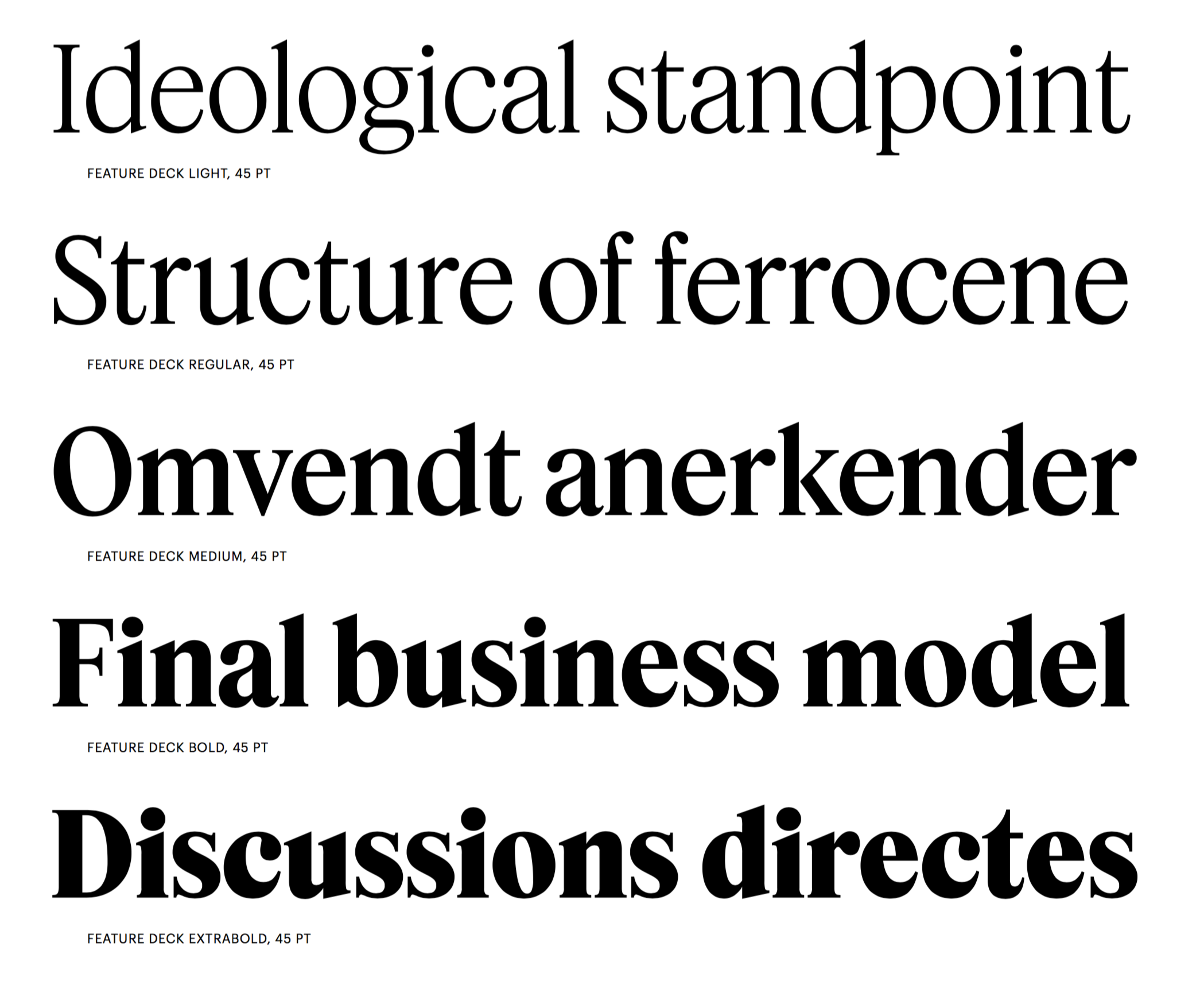
Delusse Family
Commercial Type
Delusse is a contemporary serif typeface that combines classic elegance with modern sensibilities. It is known for its versatility and readability, making it suitable for both print and digital applications. The typeface is often used in editorial design, branding, and high-end advertising.
Feature Deck
Commercial Type
Feature Deck is a versatile display typeface designed for a wide range of applications, from editorial to branding. Known for its clean lines and modern aesthetic, it offers a contemporary take on classic display fonts. This typeface is particularly effective in large sizes, making it ideal for headlines and impactful visual communication.
Focal Collection
Commercial Type
The Focal Collection is a versatile typeface family designed for a wide range of applications, known for its clean lines and modern aesthetic. It blends geometric shapes with humanist qualities, making it suitable for both display and text use. The collection is often utilized in branding, editorial design, and digital interfaces.
Nicola Collection
Commercial Type
The Nicola Collection is a versatile typeface family known for its elegant and contemporary design. It combines classic proportions with modern details, making it suitable for a wide range of applications, from editorial to branding. The collection is recognized for its readability and aesthetic appeal, often used in both print and digital media.
Royal Gothic Family
Commercial Type
Royal Gothic is a modern sans-serif typeface known for its geometric forms and clean lines. It is designed for versatility, making it suitable for a wide range of applications from editorial to branding. The typeface combines a contemporary aesthetic with a classic feel, making it a popular choice for designers seeking a refined yet approachable look.